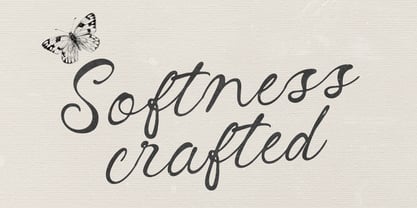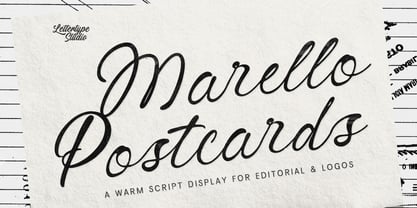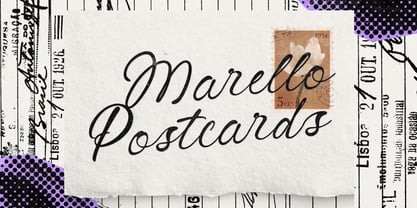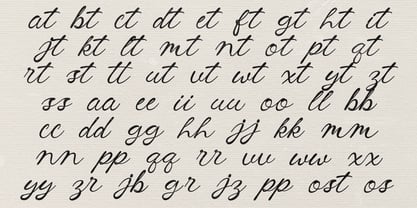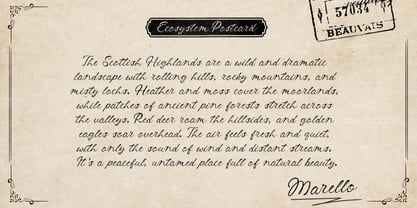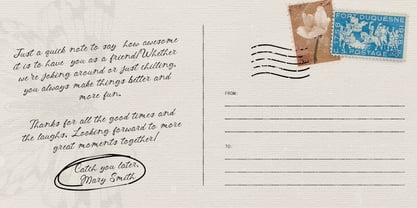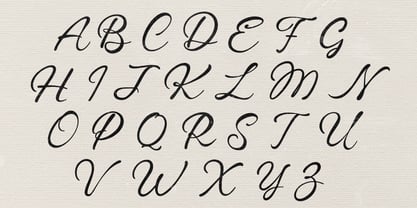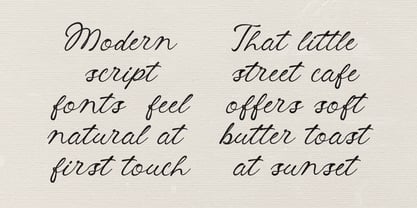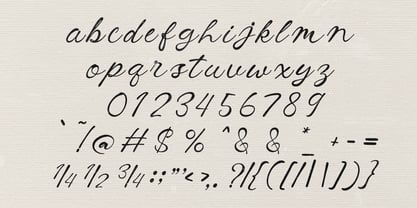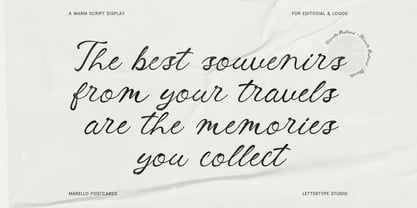
Marello Postcards
por Lettertype Studio
La familia tipográfica Marello Postcards fue diseñada por Diki Pradipta Tri Atmojo y publicada por Lettertype Studio. Marello Postcards contiene 1 estilos. Más información sobre esta familia
Marello Postcards is a handwritten display typeface that captures the warmth of personal notes, travel memories, and nostalgic storytelling. Designed with organic strokes and natural rhythm, this font feels intimate, expressive, and human—perfect for designs that aim to feel personal rather than polished. Whether used for postcards, journals, greeting cards, or branding with a handcrafted tone, Marello Postcards brings emotional character into every word. Its relaxed letterforms and friendly flow make it ideal for projects that want to communicate sincerity, warmth, and a sense of connection.